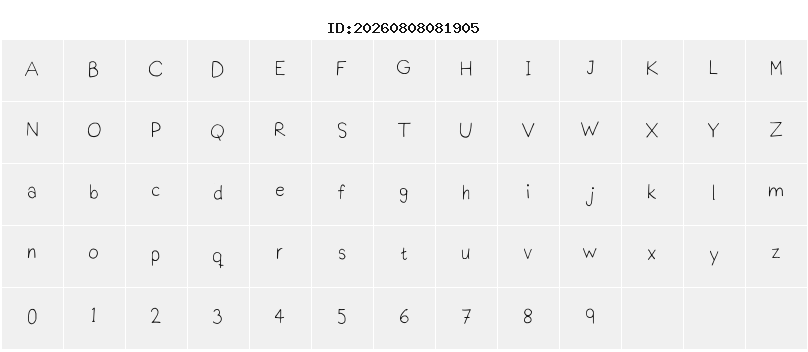
PraktiScript Preview
• Font Name: PraktiScript
• Full Font Name: PraktiScript Medium
About PraktiScript.otf
PraktiScript.otf is a modern, elegant sans-serif font designed for ultimate readability and visual harmony. Perfect for branding, headlines, web design, and print materials.